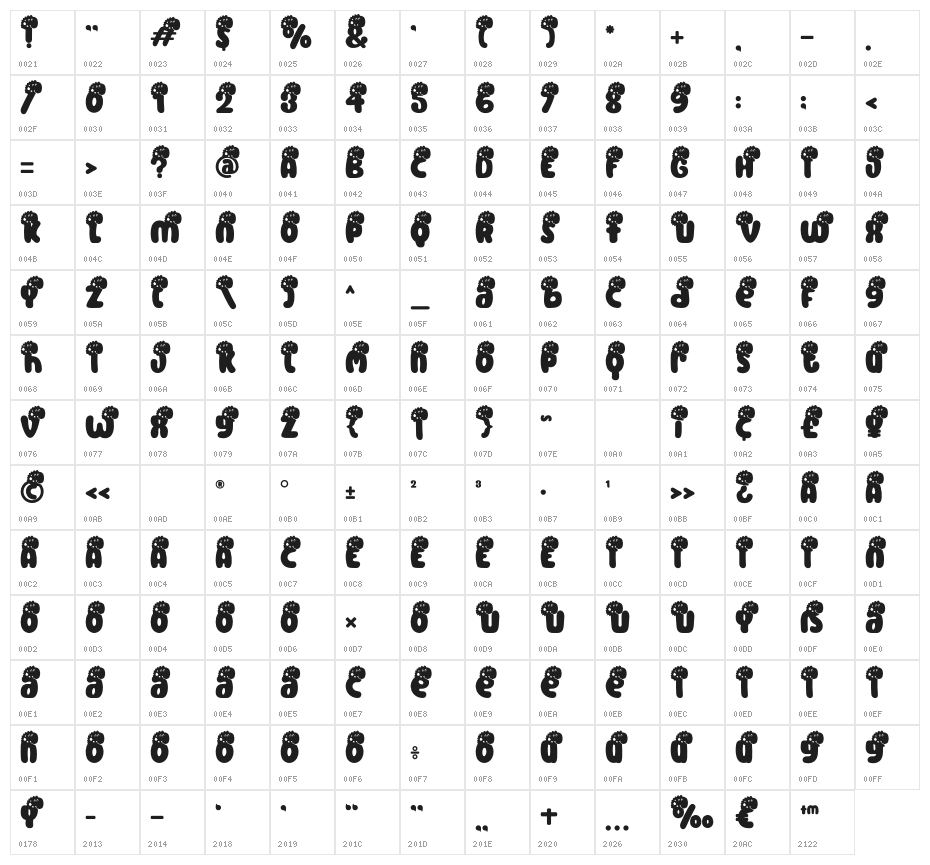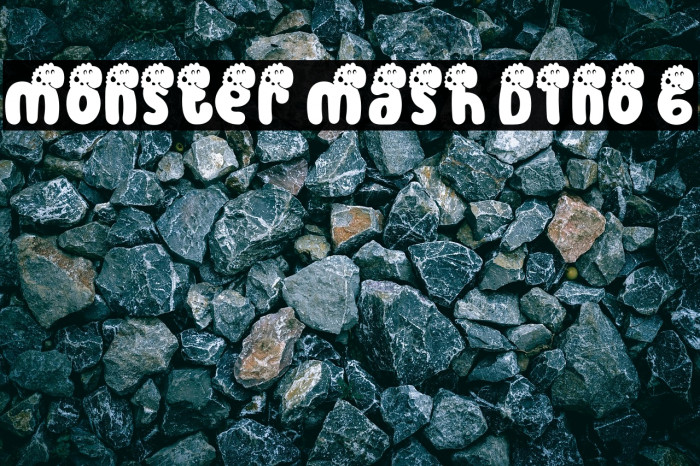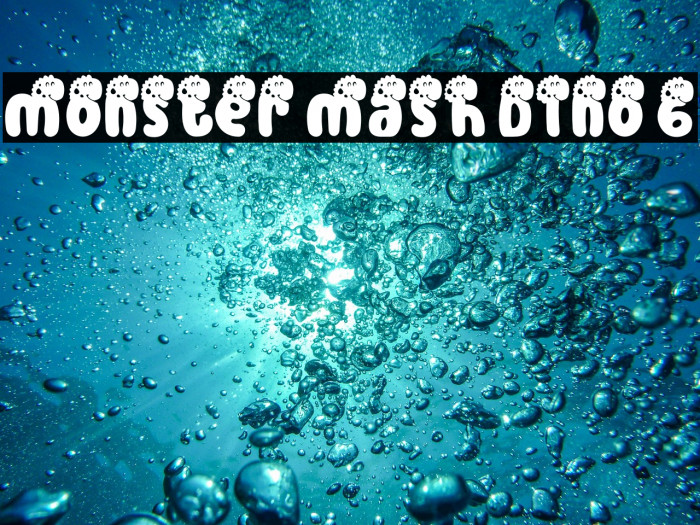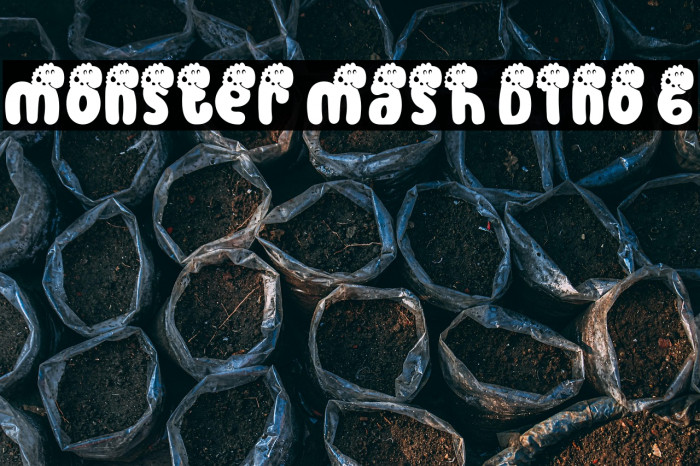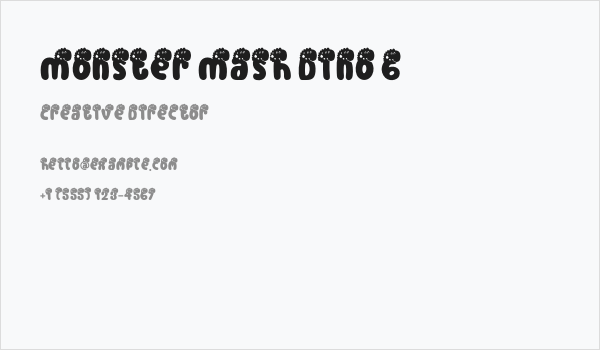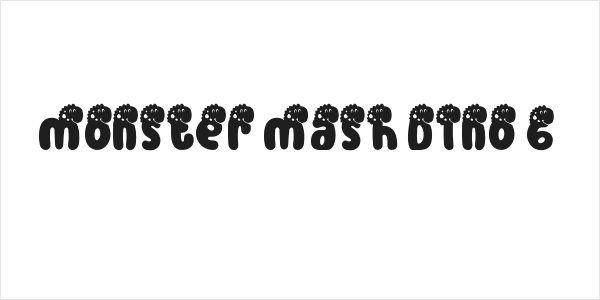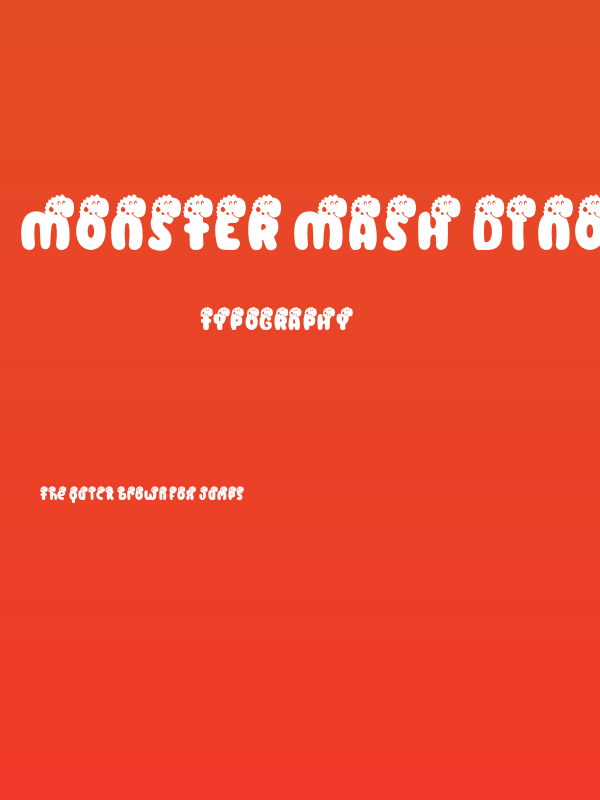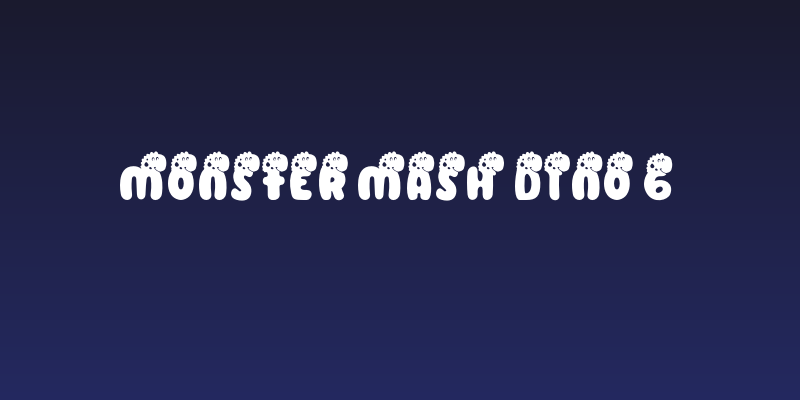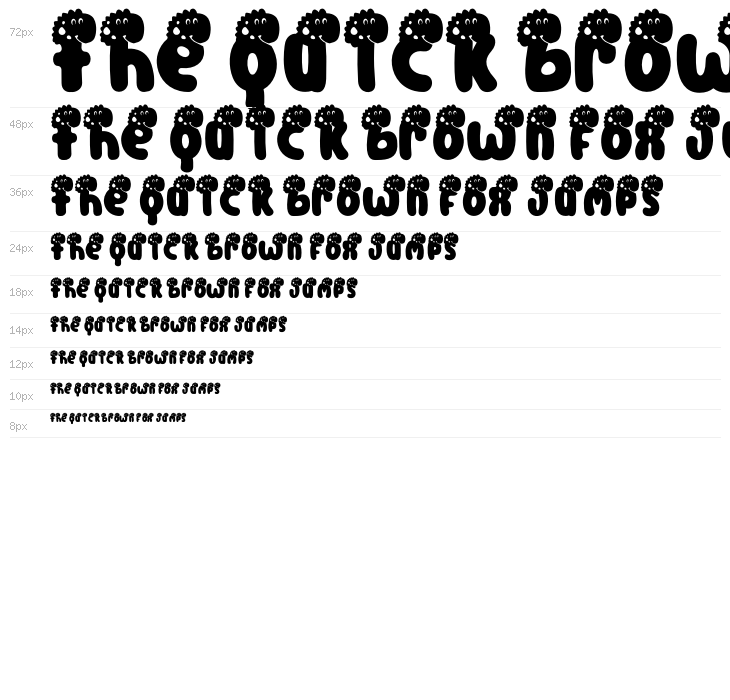
Monster Mash Dino 6 Font
This playful and whimsical font features bold, rounded characters with a unique dinosaur-themed design. Each letter is adorned with a cartoonish dinosaur head, adding a fun and imaginative touch. The characters are thick and uniform, creating a cohesive and eye-catching appearance. The font is highly decorative, making it ideal for projects that require a playful and engaging aesthetic. Its boldness ensures visibility and impact, while the quirky design elements make it perfect for children's materials, themed events, or creative branding.
| Proposed Projects | Ideal for children's books, themed party invitations, playful branding, educational materials, and creative posters. |